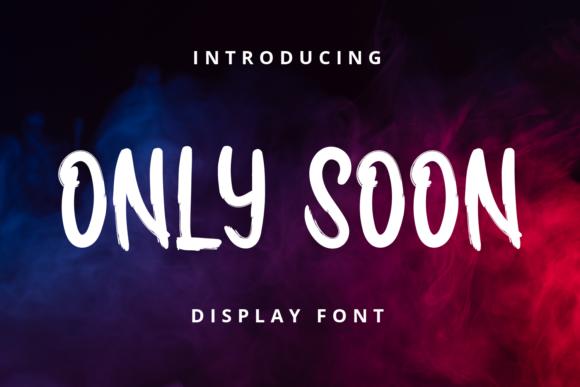
Hey, are you ready to add a touch of whimsical charm to your designs? Look no further than our beloved Only Soon display font!
Picture this: soft hues painted with a playful brush, each character infused with its own unique personality. Whether you're crafting invitations for a baby shower where dreams take flight or designing playful posters that spark imaginations, Only Soon will effortlessly transform your ideas into captivating creations.
As you dance across the keyboard, your designs will blossom with an unmatched allure. It's a font that says "celebrate life's precious moments" with every stroke.
We're not just talking about any ordinary font here. Only Soon has been meticulously crafted by our in-house design wizard, nicetrip7, who poured their passion for joyful expression into every curve and stroke.
From the moment you lay eyes on Only Soon, you'll feel an undeniable connection. It's a font that resonates with the innocence and wonder of childhood, evoking the pure joy and laughter that fills the air at every baby shower.